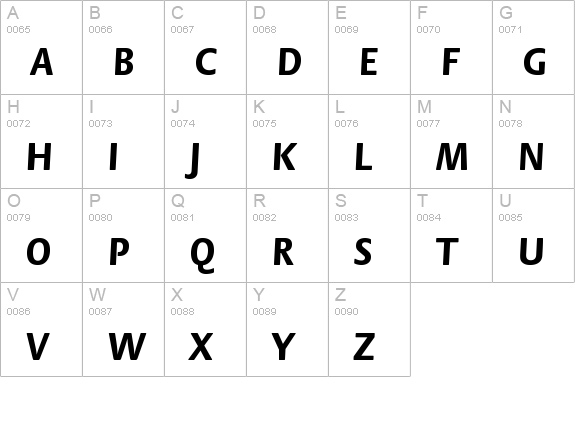
FloraEF-Bold is a strong, high-contrast variant in the FloraEF typeface family \xE2\x80\x94 well suited to headlines, attention-grabbing titles, and strong calls-to-action.
FloraEF-Bold is a stunning display font that exudes elegance and sophistication. Its bold and striking design is perfect for creating eye-catching headlines, posters, and branding materials. With its unique and modern aesthetic, FloraEF-Bold is sure to make a statement in any design project. The best part? FloraEF-Bold is available for free download at FontsMarket.com. This means you can easily access this beautiful font and use it in your projects without any cost. Whether you're a designer looking to add a touch of flair to your work or a business owner wanting to enhance your brand identity, FloraEF-Bold is the perfect choice. Download it today and elevate your designs with this exquisite typeface.